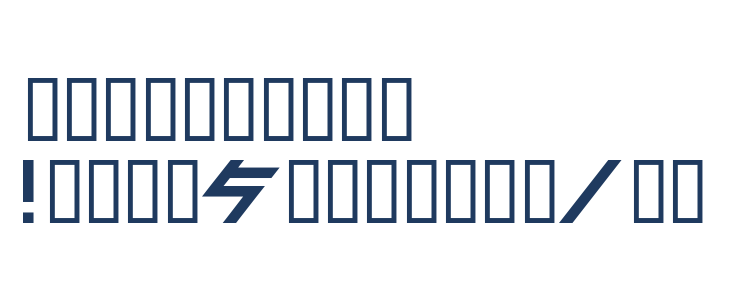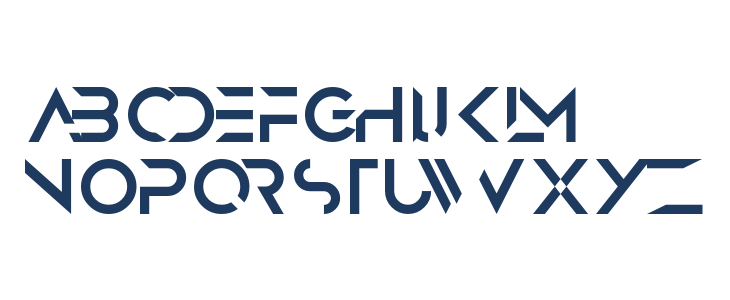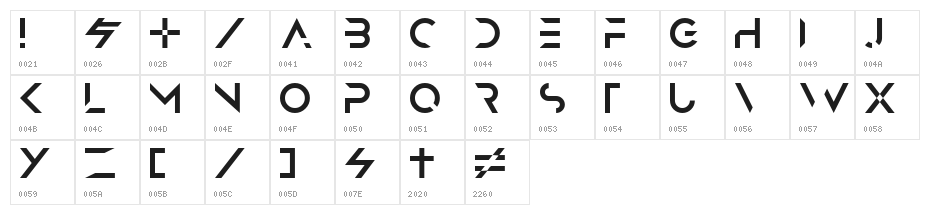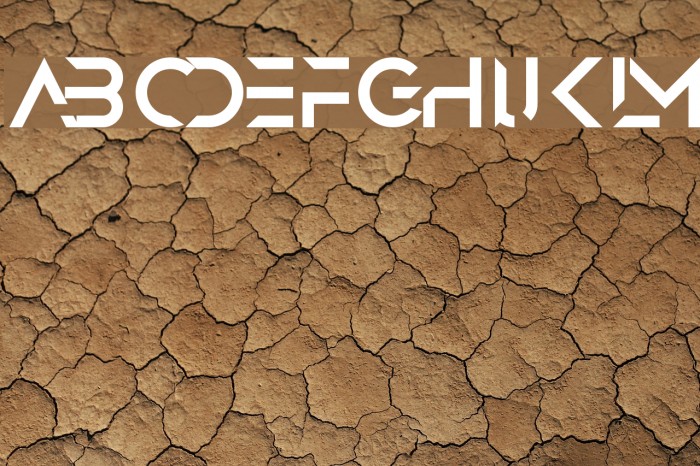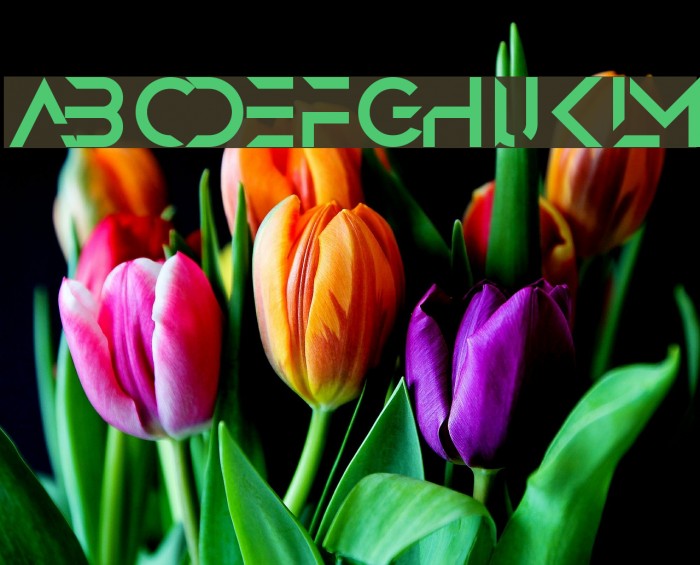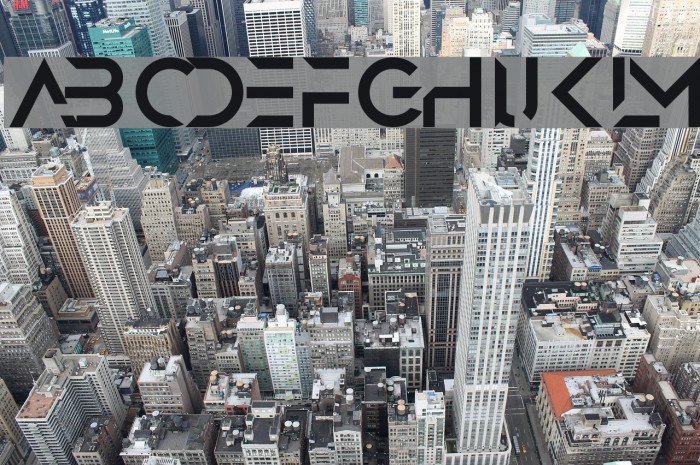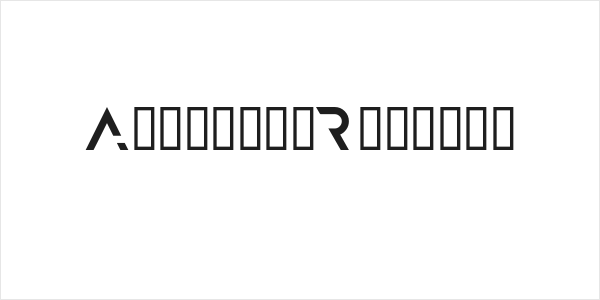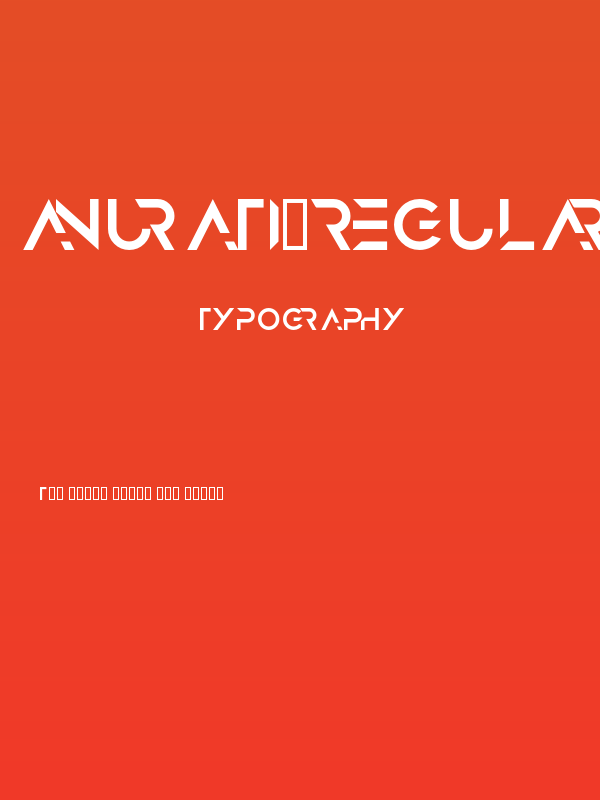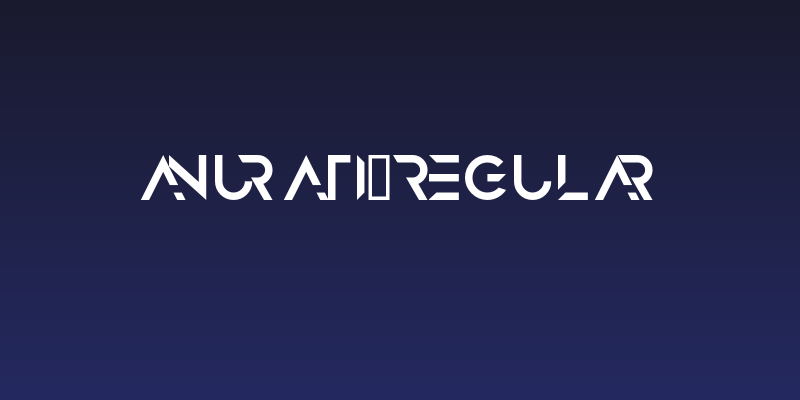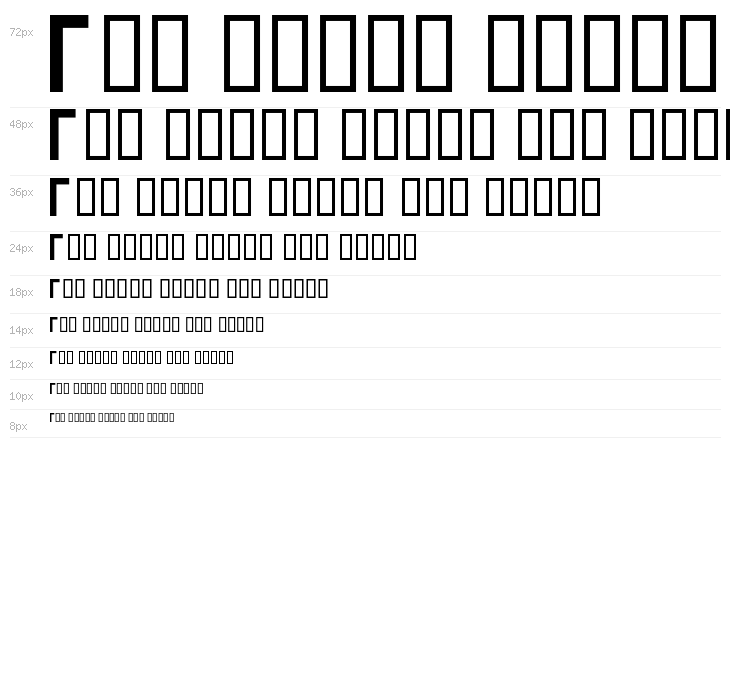
Anurati-Regular Font
Anurati-Regular Description
This font features a futuristic and geometric design, characterized by its unique cut-out sections within each letterform. The uppercase letters exhibit a bold and striking appearance, with sharp angles and clean lines that create a sense of modernity and innovation. The absence of lowercase letters suggests a focus on impactful, headline-style text. The numerals and special characters maintain the same stylistic elements, ensuring consistency across all glyphs. This font's design is highly distinctive, making it ideal for projects that require a contemporary and avant-garde aesthetic.